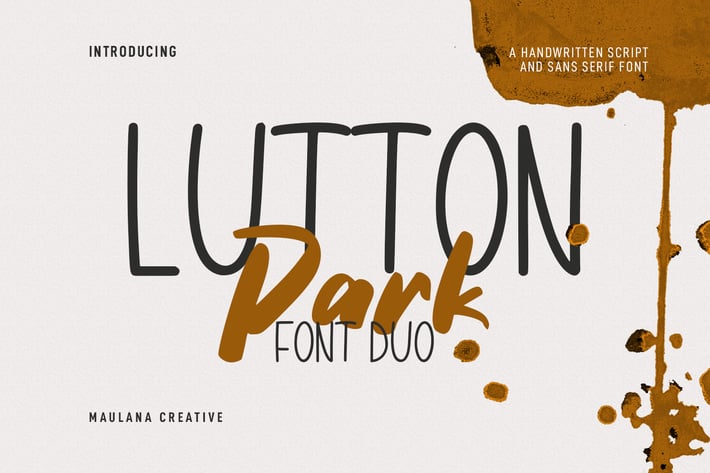
Lutton Park Script Sans Font Duo
Lutton Park is a fancy handwritten script font. With medium contrast stroke, fun character with a bit of ligatures and alternates. To give you an extra creative work. Lutton Park font support multilingual more than 100+ language. This font is good for logo design, Social media, Movie Titles, Books Titles, a short text even a long text letter and good for your secondary text font with sans or serif. Make a stunning work with Lutton Park font.